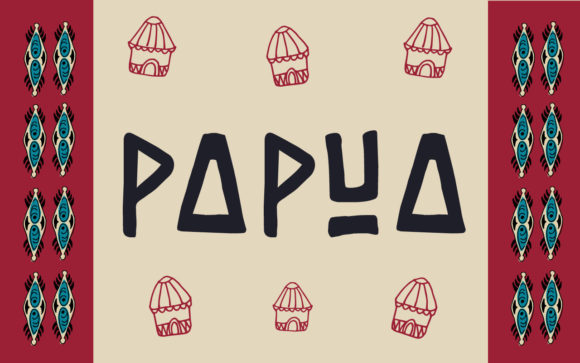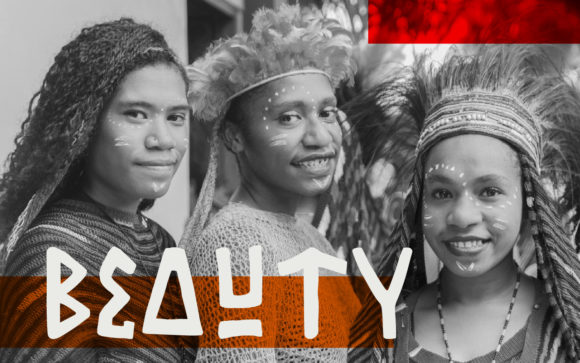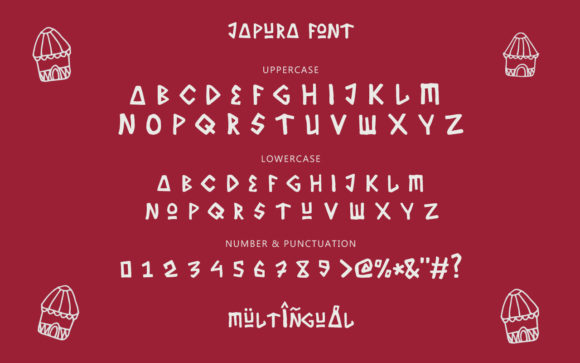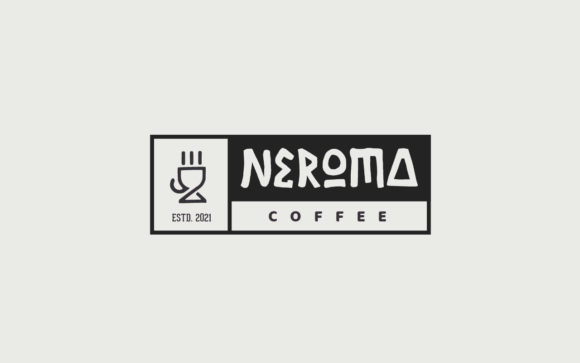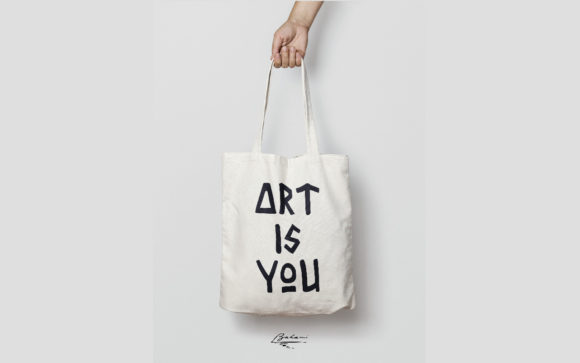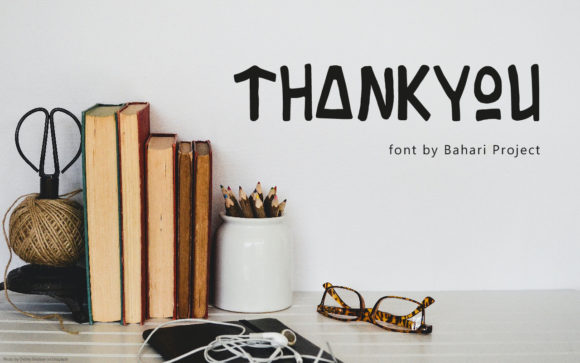
Introduction to Japura Font
Have you ever been browsing through a design inspiration board and stumbled upon a font that just speaks to you? For designers, it’s those ‘aha’ moments that can spark a creative project and elevate it to the next level. One such font that has been gaining attention in recent times is the Japura Font.
With its unique ethnic nuances and high-quality design, Japura Font is perfect for designers looking to add an original touch to their projects. Whether you’re working on a branding project or creating a visual identity for a business, Japura Font’s free download option makes it an excellent design resource to have in your toolkit. Its transparent background and creative character make it an ideal choice for designers seeking to add a personal touch to their work.
So, what makes Japura Font so valuable for designers? In this article, we’ll delve into the world of this captivating font and explore its features, uses, and benefits, helping you to unlock its full potential and take your design projects to the next level.
Key Features of Japura Font
- Unique, modern design with a transparent background, perfect for adding visual interest to any project
- Supports a wide range of languages, making it a versatile design resource for international projects
- Designed with a clean and minimalist aesthetic, making it ideal for use in logos, branding, and other creative projects
Honest Review: Japura Font
I recently stumbled upon the Japura Font, and I must say it’s a fantastic addition to any designer’s arsenal. This free download is a high-quality design resource that’s perfect for creative projects.
Here are some things that work well: ✨ The Japura Font has a unique and modern aesthetic that’s sure to make your designs stand out. The transparent background allows for easy integration with any image or background, making it a versatile design element. The font is also highly legible, making it perfect for body text or headings.
However, I did notice a few limitations: ⚠️ The Japura Font is a bit on the heavier side, which may not be suitable for all design projects. Additionally, the font family is relatively small, so you may not have as many variations to choose from.
Overall, I’m really impressed with the Japura Font. It’s a great free download that’s perfect for designers looking for a high-quality design resource. With its unique aesthetic and transparent background, it’s sure to be a hit in any creative project.
- Unique and modern aesthetic
How to Use Japura Font
Getting the Most Out of Japura Font
Take advantage of Japura Font’s transparent background by using it for overlays, text effects, or creative typography. Experiment with different font sizes, colors, and combinations to achieve the desired look for your design project.
Japura Font is ideal for creative projects such as logo design, infographics, and social media graphics. Its unique design and high-quality characteristics make it an excellent choice for various applications, including branding, marketing materials, and more.
Alternatives to Japura Font
The Alex Brush Font is a beautiful, handwritten font that works well for design resources that need a personal touch. It’s suitable for creative projects such as invitations, quotes, and other design elements where a sense of personality is required. Alex Brush Font has a more expressive and artistic feel compared to Japura Font, making it perfect for projects that require a unique and creative touch.
What makes the Japura Font a high-quality design resource?
The Japura Font features a transparent background, making it ideal for creative projects that require a clean and minimalist aesthetic. Additionally, the font’s high-quality design ensures crisp and clear typography, perfect for various design applications, from logos to brochures.